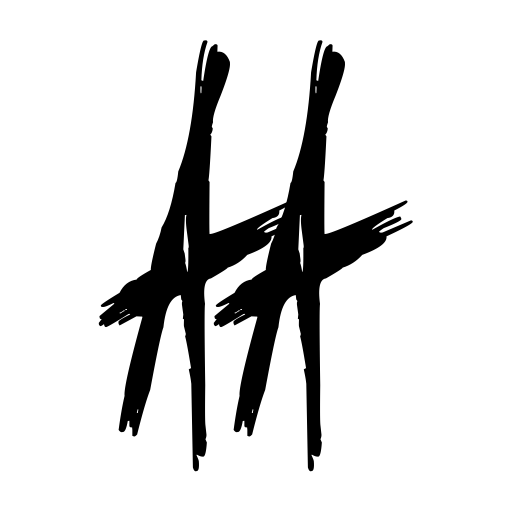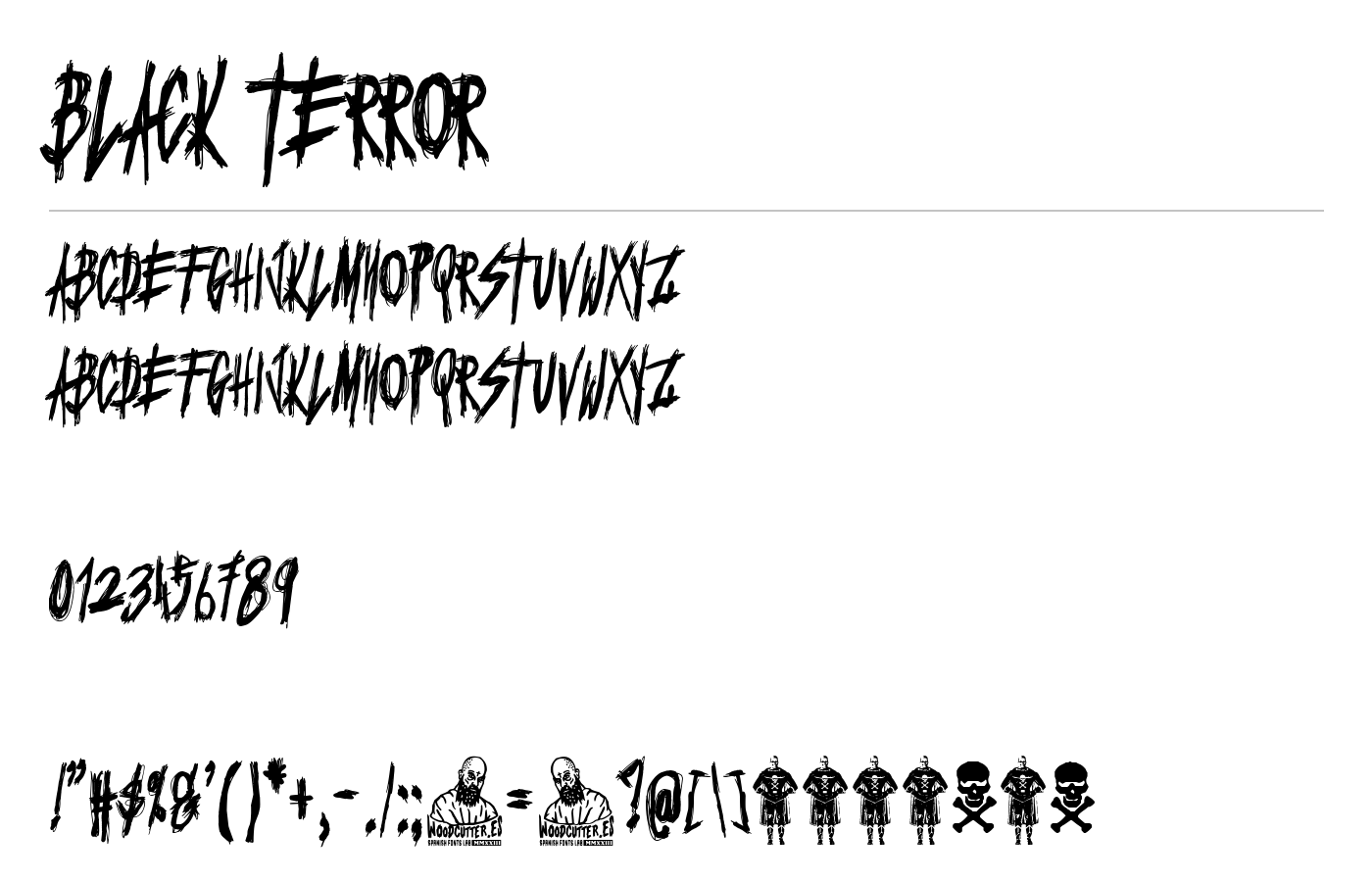
Black Terror is a bold, condensed script-style font with a rough, hand-drawn appearance that conveys an intense, edgy vibe. Its jagged strokes and uneven letterforms make it ideal for horror, punk, or underground-themed designs, capturing a raw and dramatic mood perfect for eye-catching posters, logos, and branding with a rebellious spirit.
Black Terror Font
About Black Terror Font